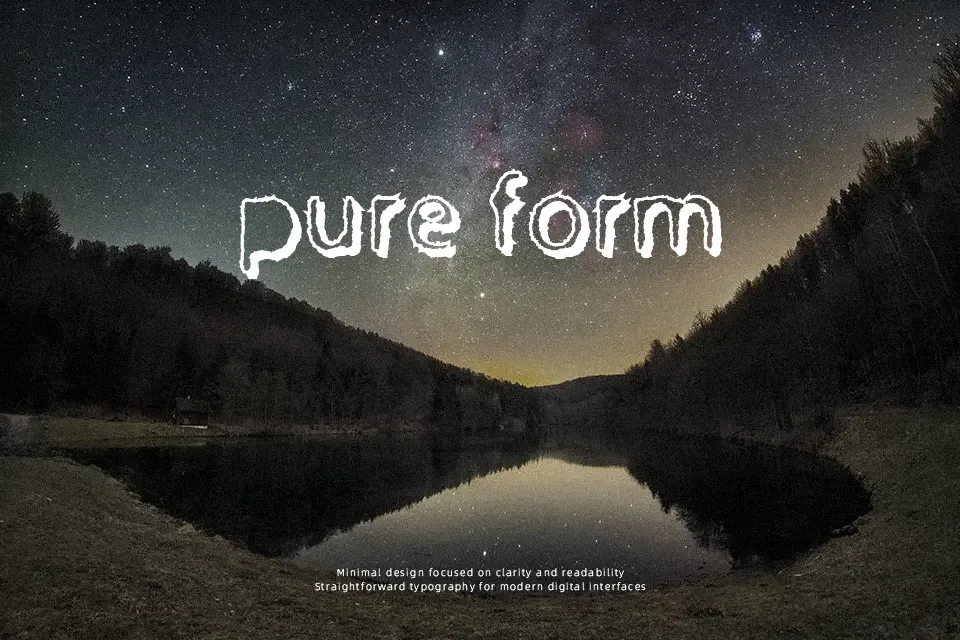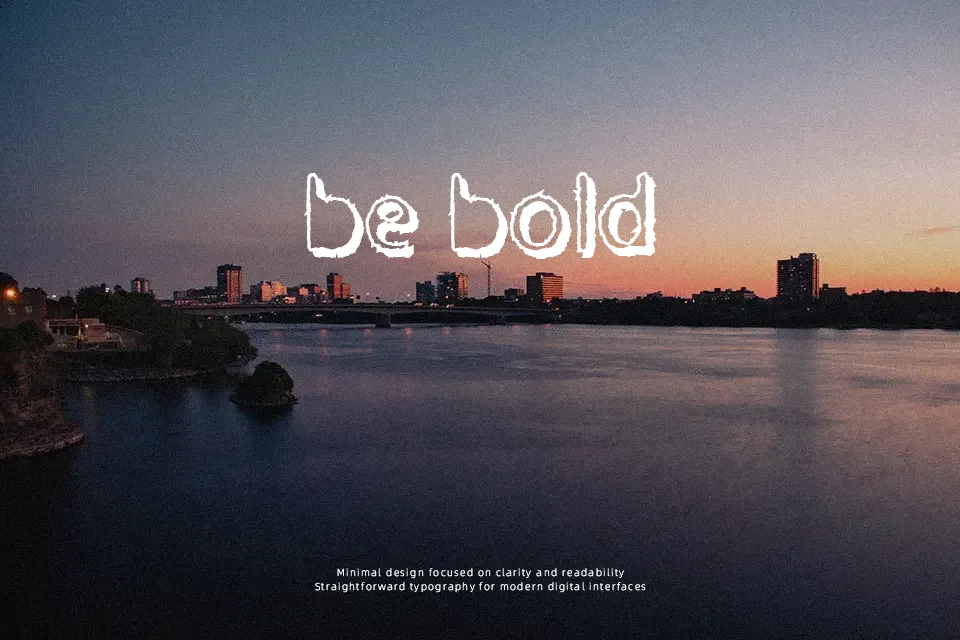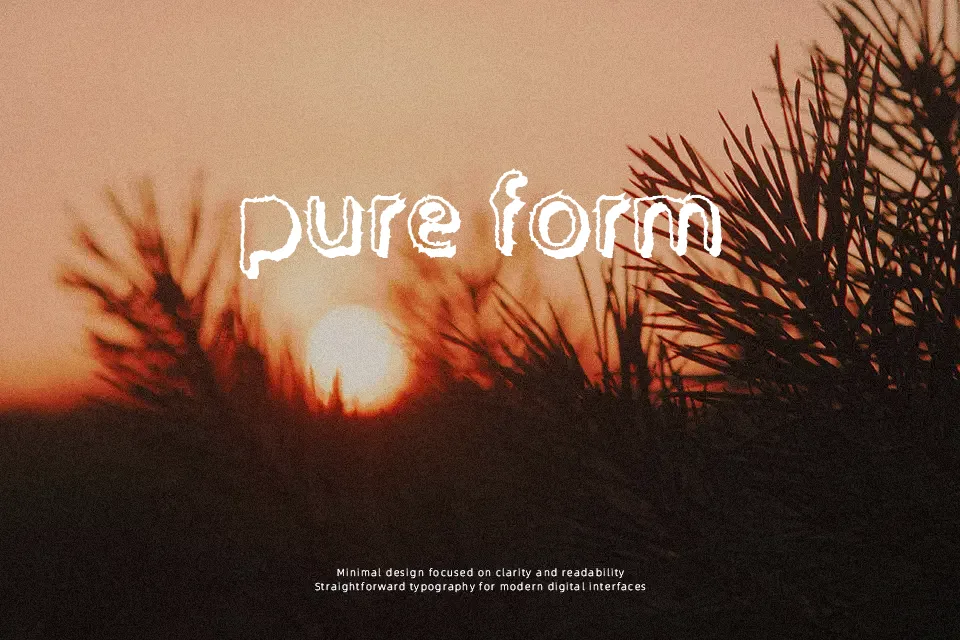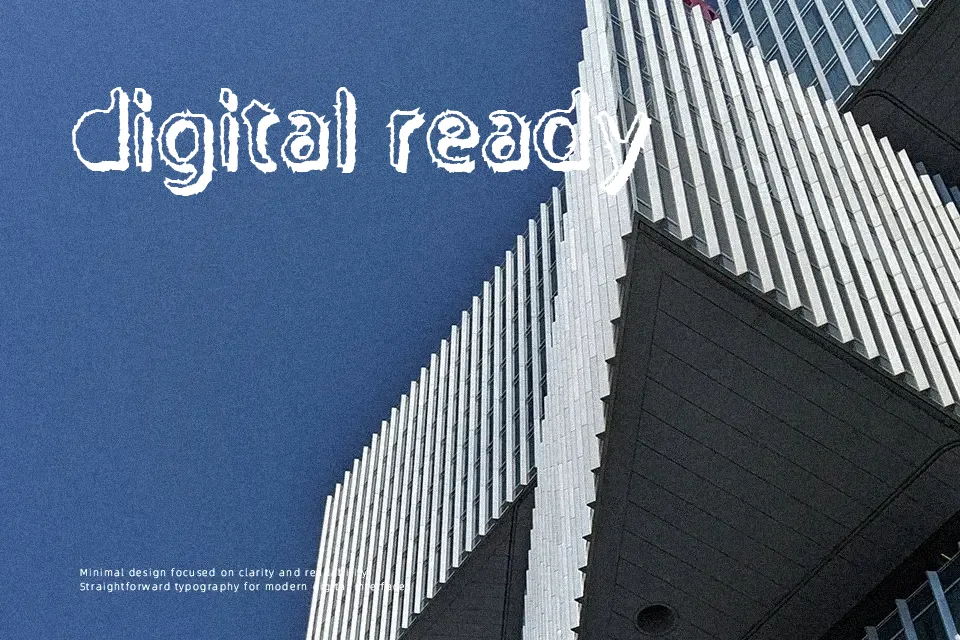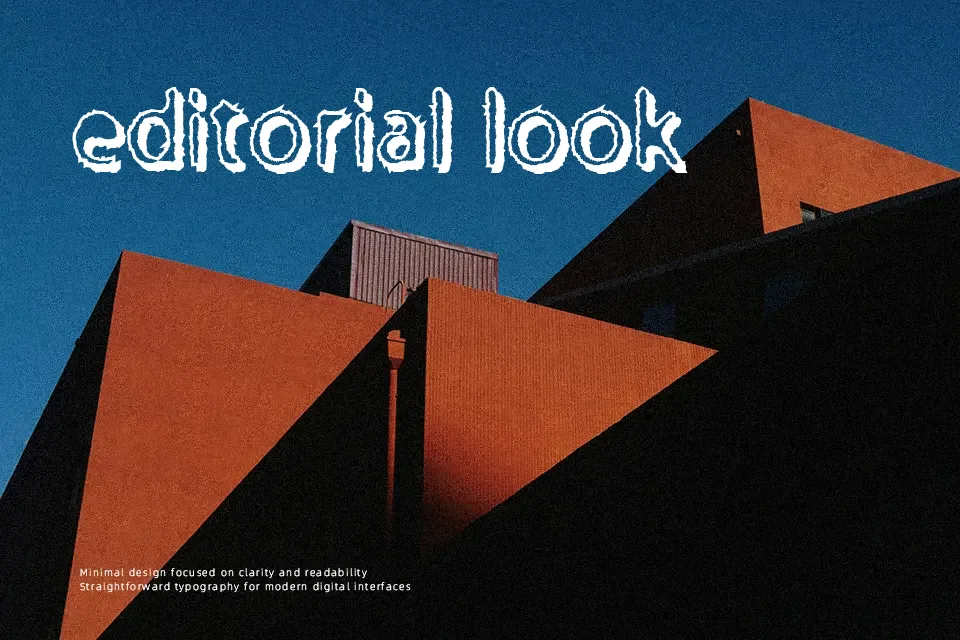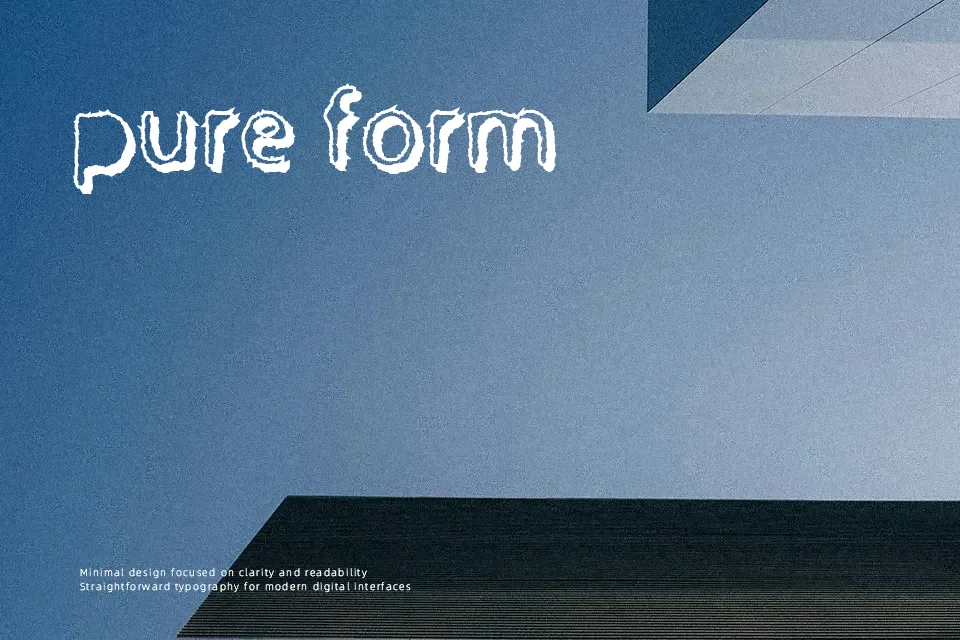
Undertaker Font
Designed by 28fonts
Undertaker Font commands attention through severely distressed letterforms marked by fractured silhouettes, jagged contours, and irregular eroded surfaces. Heavy stroke weights produce immediate visual weight, while compact character spacing maintains tight cohesion across display arrangements. Uppercase characters exhibit balanced vertical proportions despite their chaotic, weathered perimeter details. This decorative design excels in bold titling, punk merchandise, and entertainment graphics where raw grit is essential. However, the heavy surface disintegration significantly degrades legibility in smaller text sizes, rendering the typeface unsuitable for continuous reading or dense editorial layouts.
Best For: heavy metal band logos, horror movie posters, streetwear apparel graphics, halloween event banners
Not Ideal For: long body text, corporate brochures, mobile app interfaces, dense tabular data